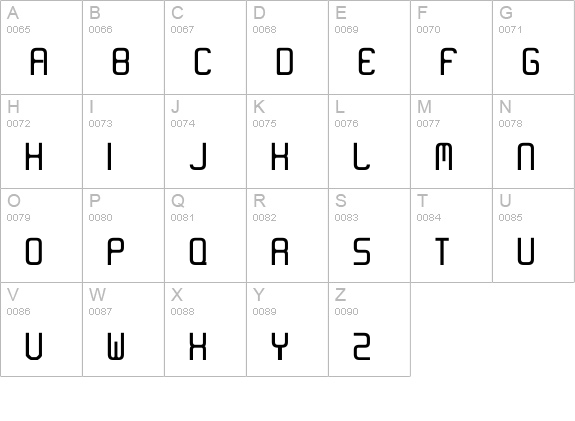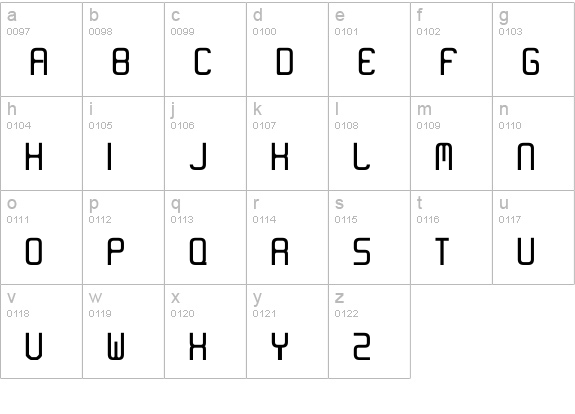
neon-like Font Details
Introducing the mesmerizing and vibrant Neon-Like font, a captivating display typeface that brings to life the electrifying essence of neon lights. With its bold and luminous appearance, this font is perfect for creating eye-catching designs that demand attention. Embrace the futuristic and dynamic feel of Neon-Like font, as it effortlessly injects a sense of excitement and modernity into any project. Whether used for posters, signage, branding, or social media graphics, this font is sure to make a memorable impact. Best of all, Neon-Like font is available for free download at FontsMarket.com, allowing you to easily add a touch of neon-inspired flair to your designs without any cost. Don't miss out on this fantastic opportunity to elevate your creations with the striking and energetic Neon-Like font today!